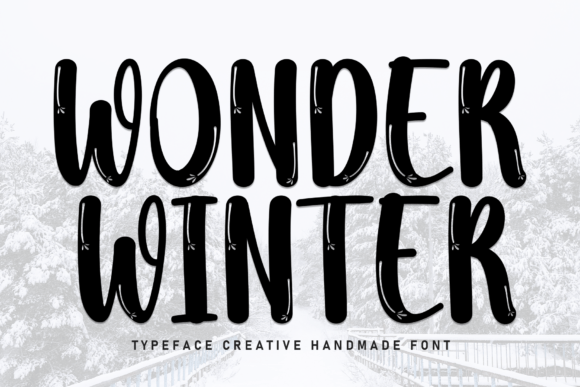
Introducing Wonder Winter Font, the perfect blend of elegance and sophistication that will captivate your senses! Created by the talented Roronoa zoro.S.P.D, this script font is a true masterpiece, designed to elevate your projects to new heights.
With its timeless handwritten style, Wonder Winter Font exudes a sense of charm and grace that is unmatched. Each letter is meticulously crafted, showcasing a unique and beautiful touch that will breathe life into your designs. From creating stunning logos to crafting memorable branding, this font has it all!
One of the standout features of Wonder Winter Font is its versatility. Whether you're designing an invitation, a quote, or a social media post, this font effortlessly adapts to any context. Its seamless integration into various projects is a testament to its flexibility, allowing you to unleash your creativity without limitations.
But what truly sets Wonder Winter Font apart is its ability to evoke emotions. Imagine the excitement and anticipation your audience will feel as they receive an invitation adorned with this exquisite font. The delicate curves and intricate details will leave a lasting impression, ensuring that your event is etched in their memories forever.
Furthermore, Wonder Winter Font serves as a powerful tool to express your brand's identity. Its captivating style will instantly grab attention and convey a sense of professionalism and sophistication. Whether you're a fashion brand, a wedding planner, or a creative agency, this font will help you make a bold statement and leave a lasting impact on your target audience.
When it comes to marketing, Wonder Winter Font is a game-changer. Its inclusion in your designs will instantly elevate your brand's visual appeal, drawing in potential customers and keeping them engaged. The eye-catching nature of this font will make your products and services stand out in a sea of mediocrity, ensuring that your message is heard loud and clear.
In conclusion, Wonder Winter Font is more than just a font – it's a work of art that breathes life into your designs. Its timeless elegance, versatility, and ability to evoke emotions make it the perfect choice for designers, creatives, and businesses alike. So why settle for ordinary when you can embrace the extraordinary? Download Wonder Winter Font today and embark on a journey of visual storytelling that will leave a lasting impression!